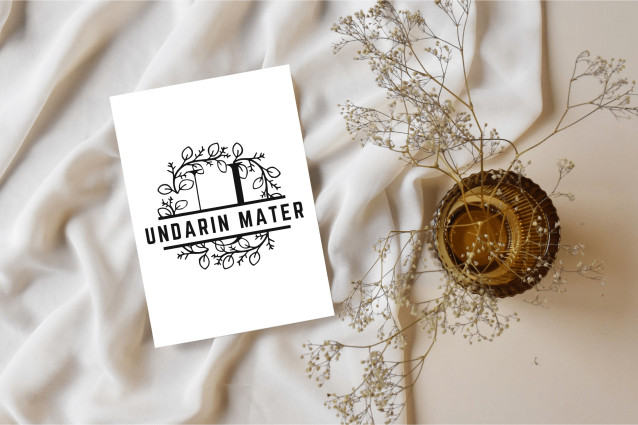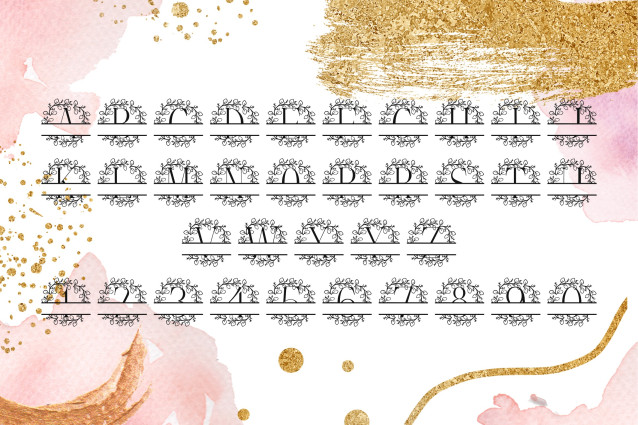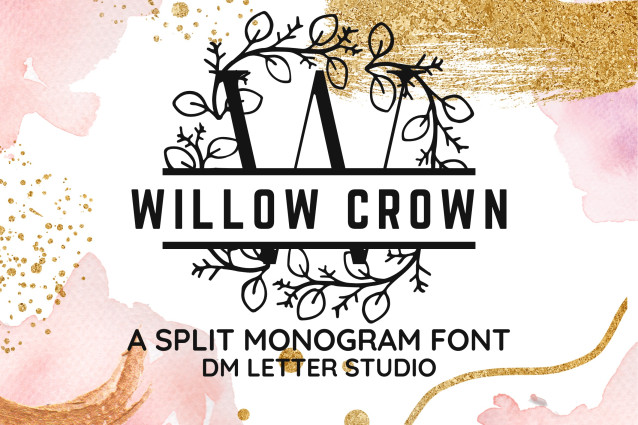
Willow Crown Split Monogram Font
Willow Crown Split Monogram Font is a refined serif font featuring regal split-letter designs crowned with flowing willow branch illustrations. This graceful typeface offers the perfect blend of structure and natural beauty—ideal for personalized name signs, wedding materials, and rustic-luxury branding. The horizontal split allows easy customization for initials, names, or titles, all wrapped in botanical elegance.